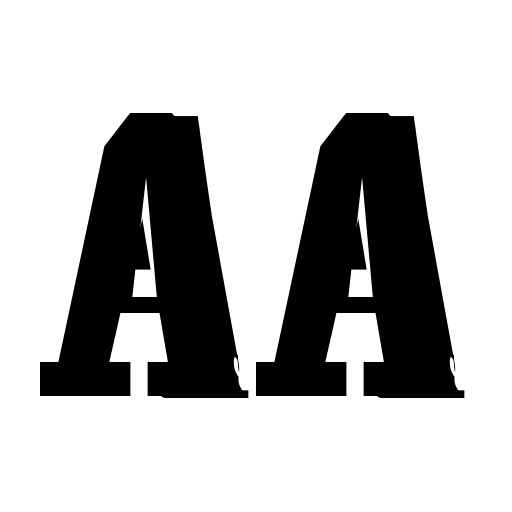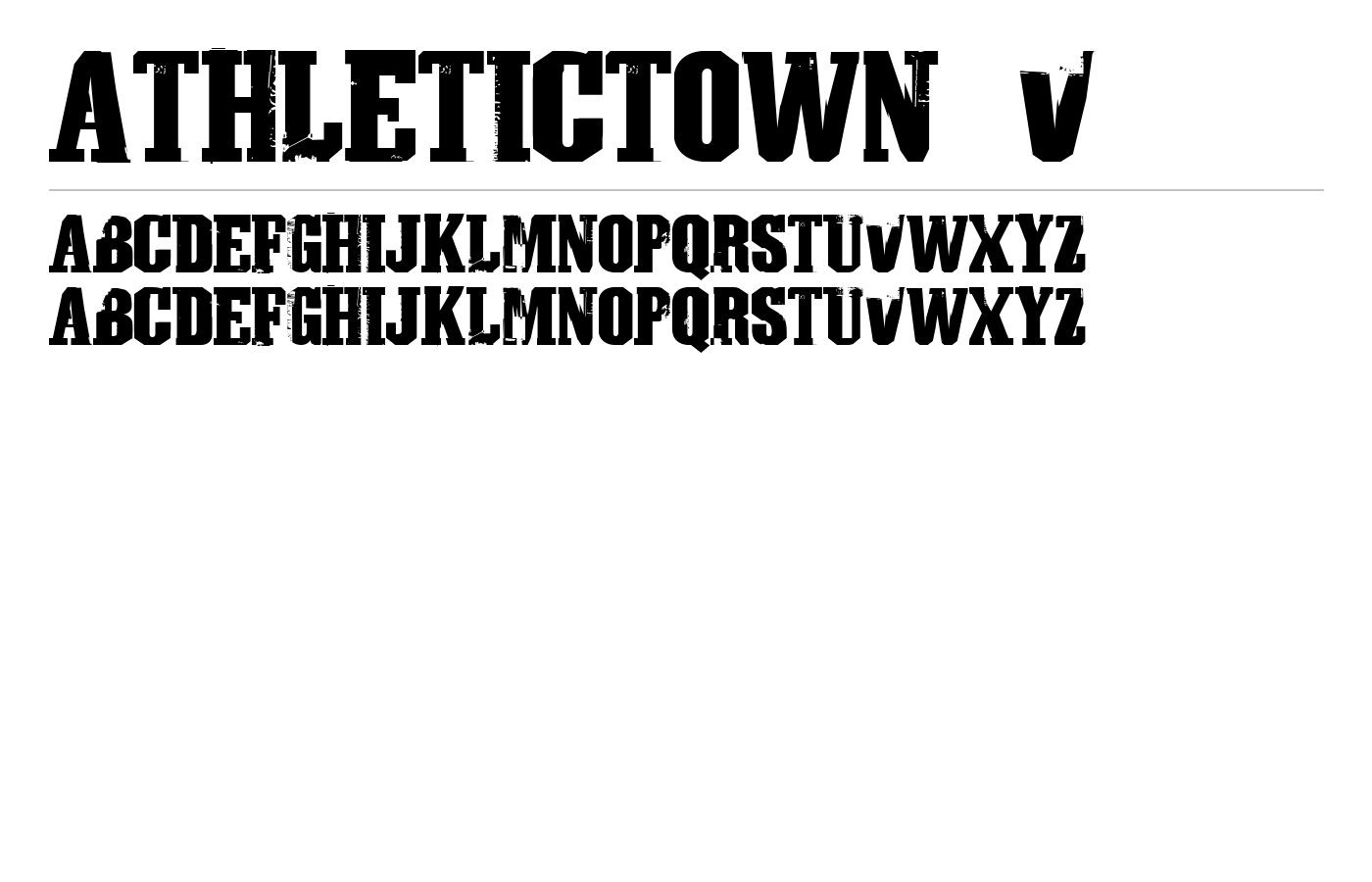
AthleticTown v0.1 is a bold, condensed slab serif font with a rugged, distressed texture that gives it a strong, vintage athletic vibe. Its sturdy letterforms and high contrast strokes create an impactful presence, making it ideal for sports branding, team logos, and eye-catching headlines where a gritty, energetic style is desired. This font works best in designs requiring a bold statement with character and a worn-in, tough look.
AthleticTown v0.1 Font
About AthleticTown v0.1 Font